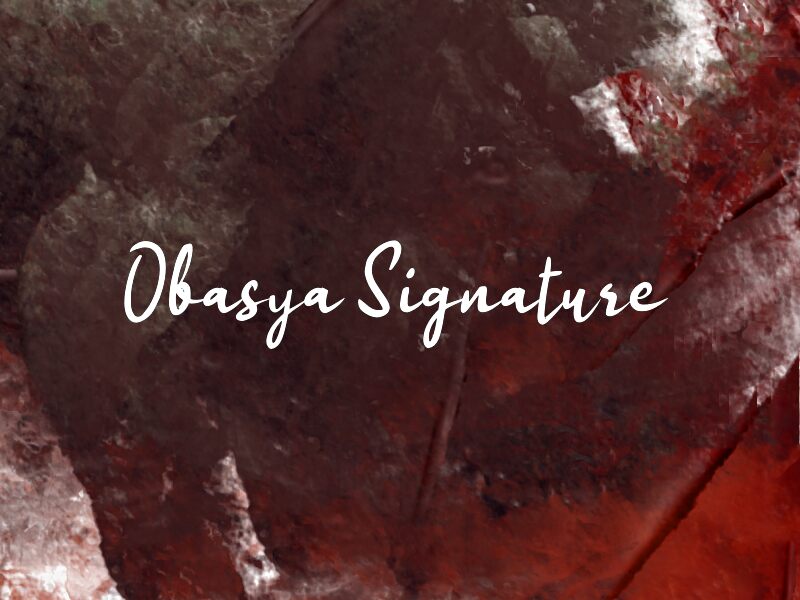
Obasya Signature font by wep captures the essence of elegance and style with its handwriting-like aesthetics. This font exhibits charm and sophistication to contemporary applications. Obasya’s letters are artistically expressive and stylish, comparable to a natural signature on paper. The modern font will excel in contemporary applications including branding and packaging.
The expressiveness of Obasya Signature shall enrich books covers, quotes, ads, social media posts, invitations, crafts, magazines, logos, and titles.
Obasya Signature is a stunning free font that captures the essence of elegance and sophistication. This beautifully crafted typeface is perfect for adding a personal touch to your projects, whether you are designing invitations, branding materials, or any creative work that benefits from a handwritten style.
With its fluid lines and unique character, Obasya Signature stands out and enhances the visual appeal of any text. The user-friendly design makes it easy to incorporate into your digital or print designs.